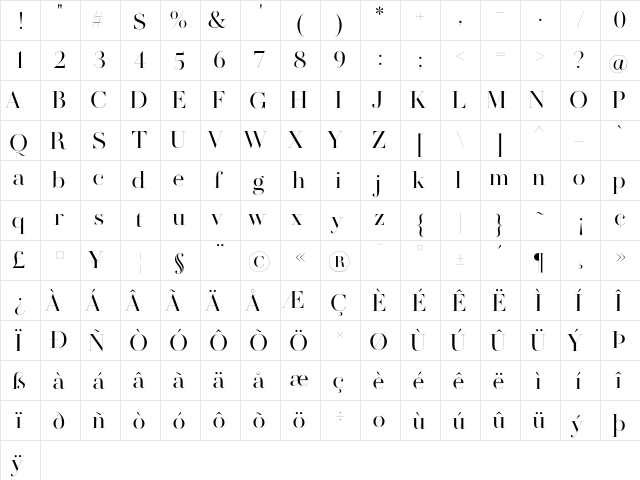
MADE SAONARA 2 Regular
| Foundry | MadeType |
| Designer | MadeType |
Design Context for MADE SAONARA 2 Typeface
MADE SAONARA 2 takes a measured approach to typography — its balanced proportions and neutral character make it a reliable workhorse for both digital and print work.